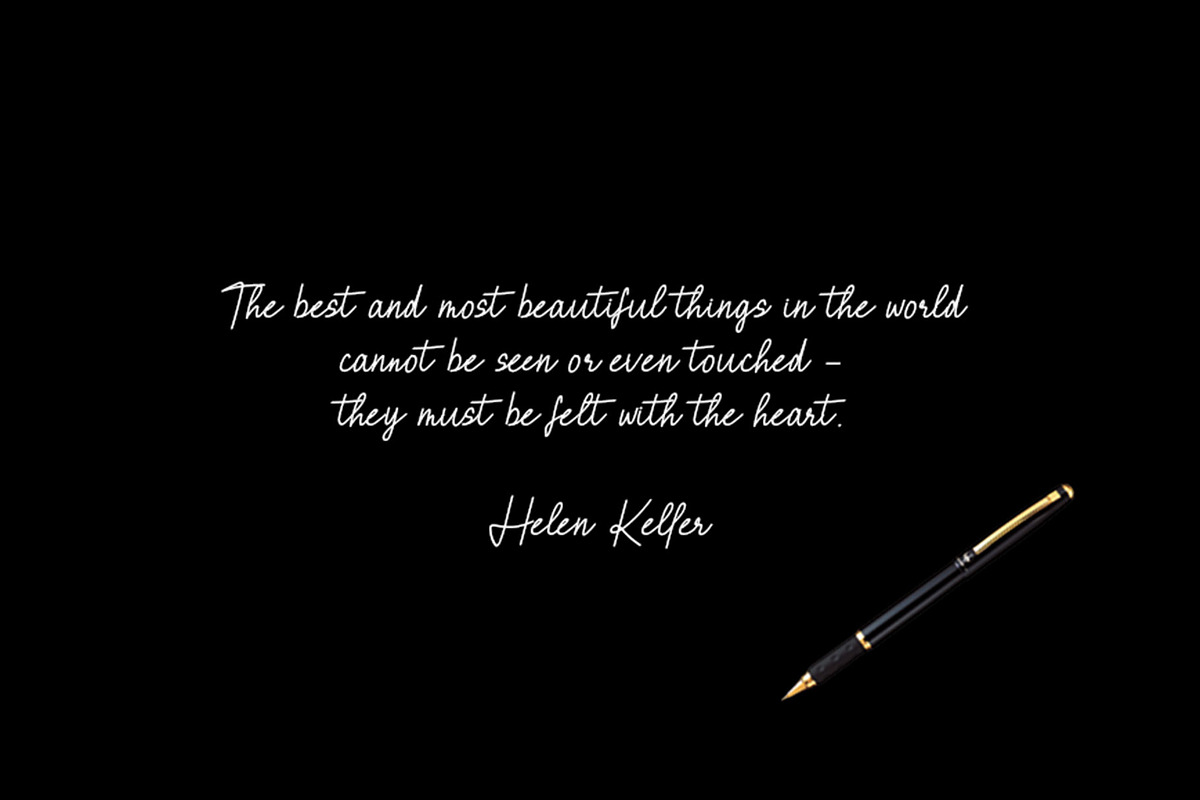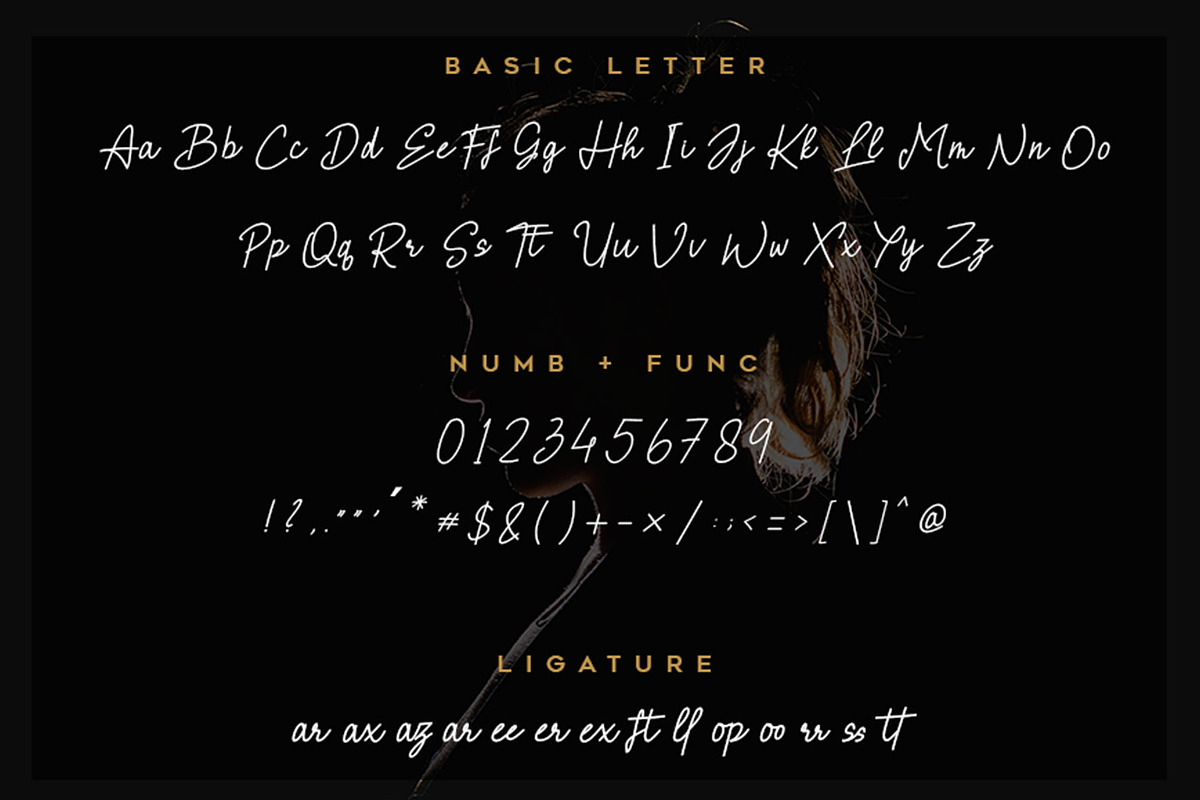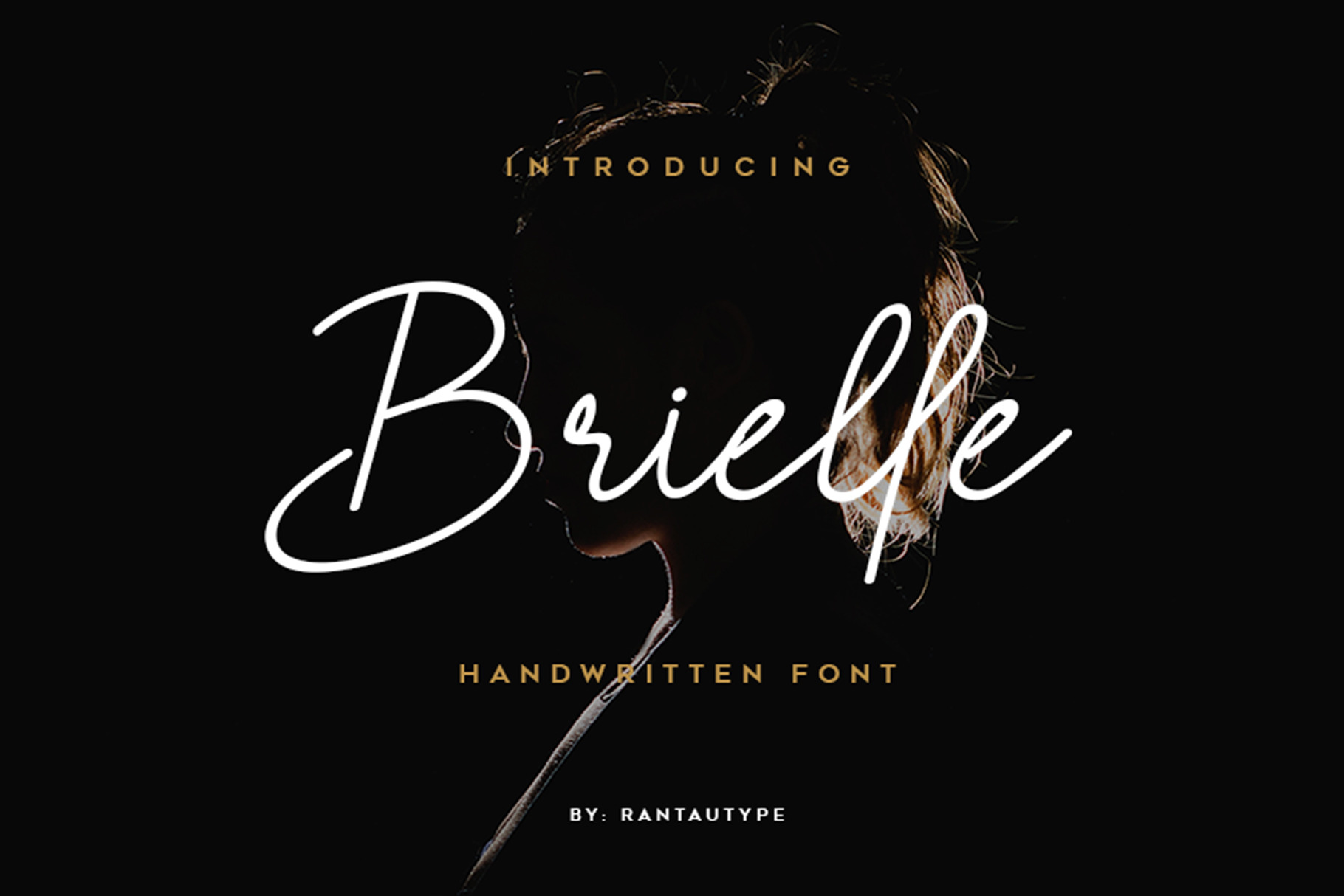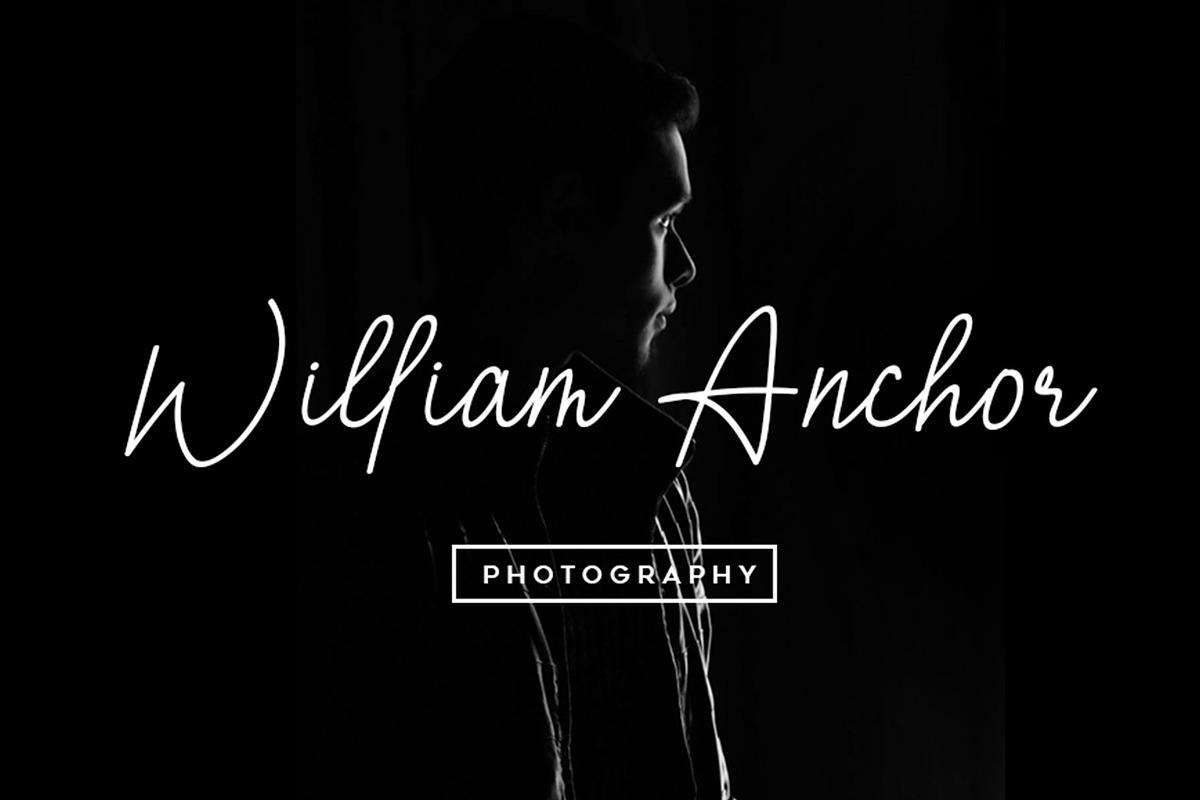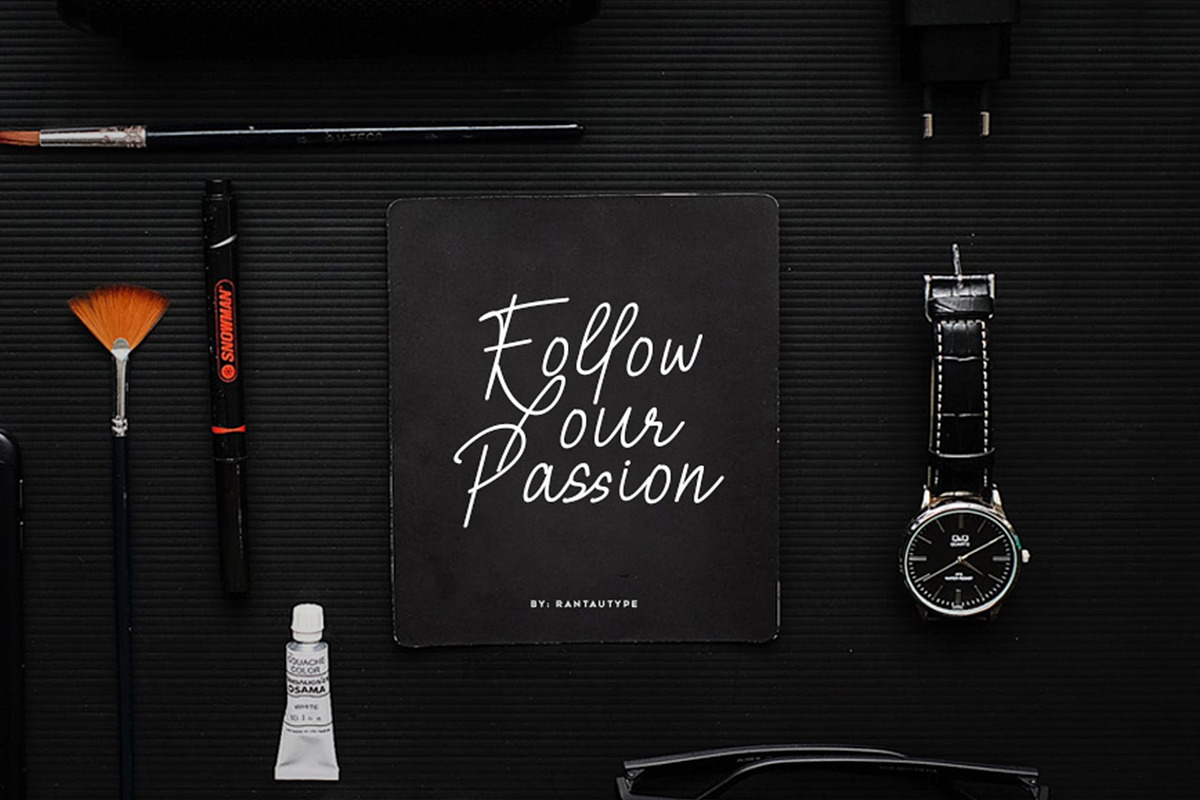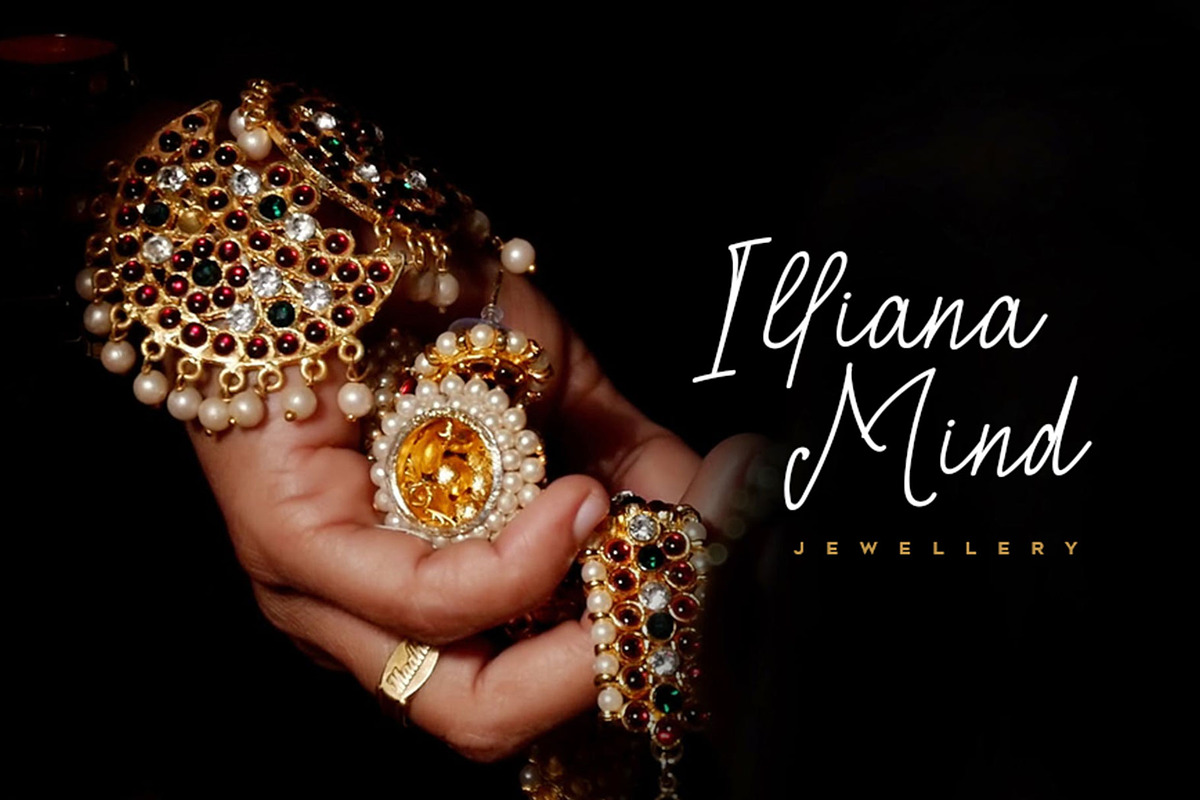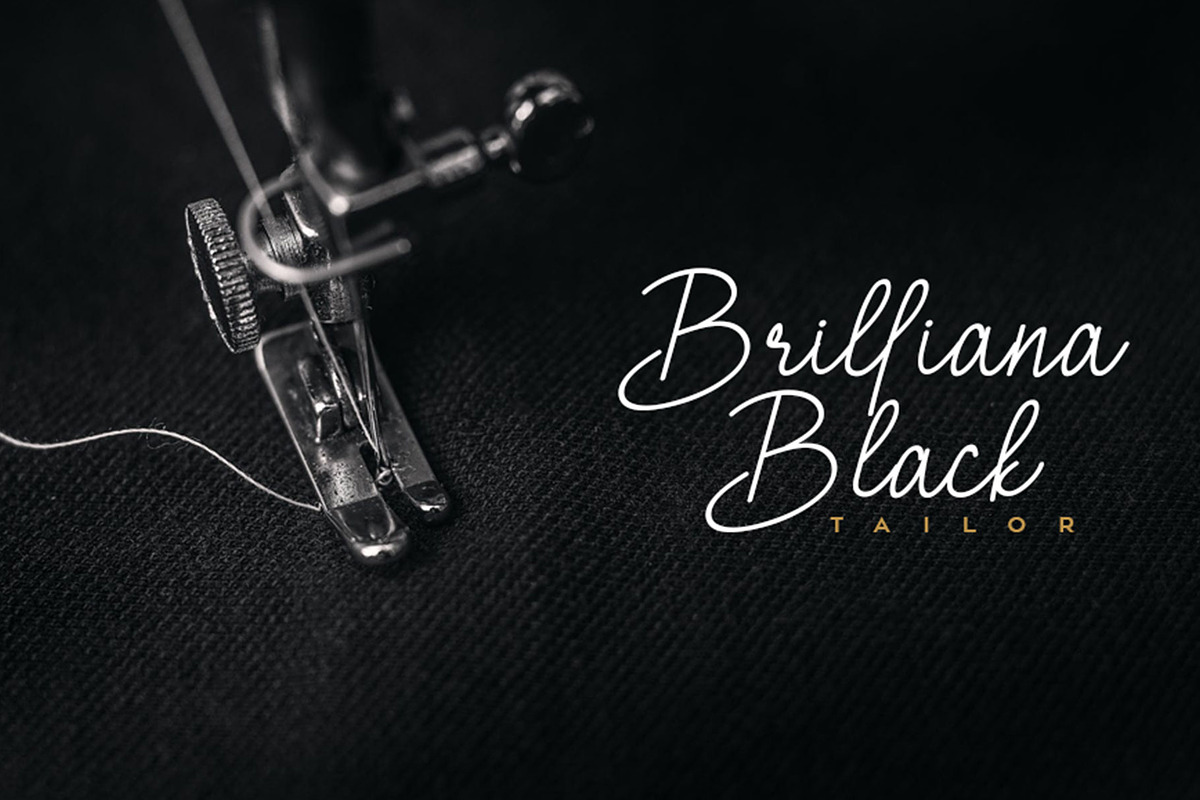
Brielle - Handwritten font
Introducing: Brielle is a trendy and unique handwritten font. Its characteristic flow and signature style makes it perfect to use for logos, signatures, quotes, badges, labels, packaging design, blog headlines or simply use it in your next design project.
- Basis Letter: A - Z and a - z
- Number & Functional